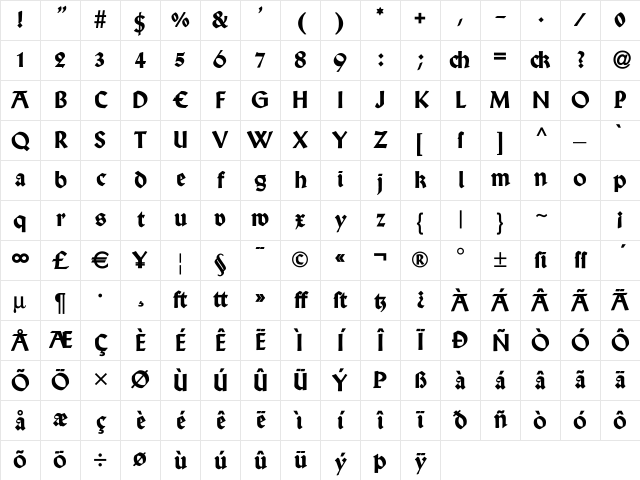
Complete Wallau Rundgotisch OsF Heavy glyph index. Displaying only characters natively supported by Wallau Rundgotisch OsF Heavy font.
Wallau Rundgotisch OsF is a composed and adaptable typeface that performs quietly and consistently across a wide range of design contexts.